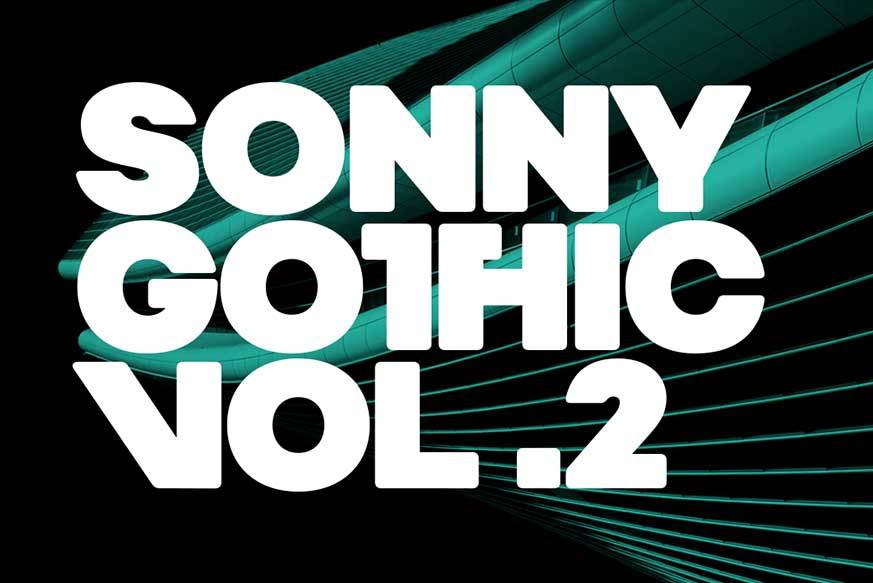
Sonny Gothic Vol 2 Font Family
Sonny Gothic Vol 2 is an extension of our popular font Sonny Gothic. All corners have been softened to get a friendlier and fluffy visual language. As Sonny Gothic, this typeface has ligatures inspired by the incredible work of Herb Lubalin, chiefly Avant Garde.
We designed carefully Sonny’s Vol 2 ligatures, and we also created new ones to control the whites formed between softened characters such as FL, FB, FD, FE, FF, FH, FI, FK, FN, and FR